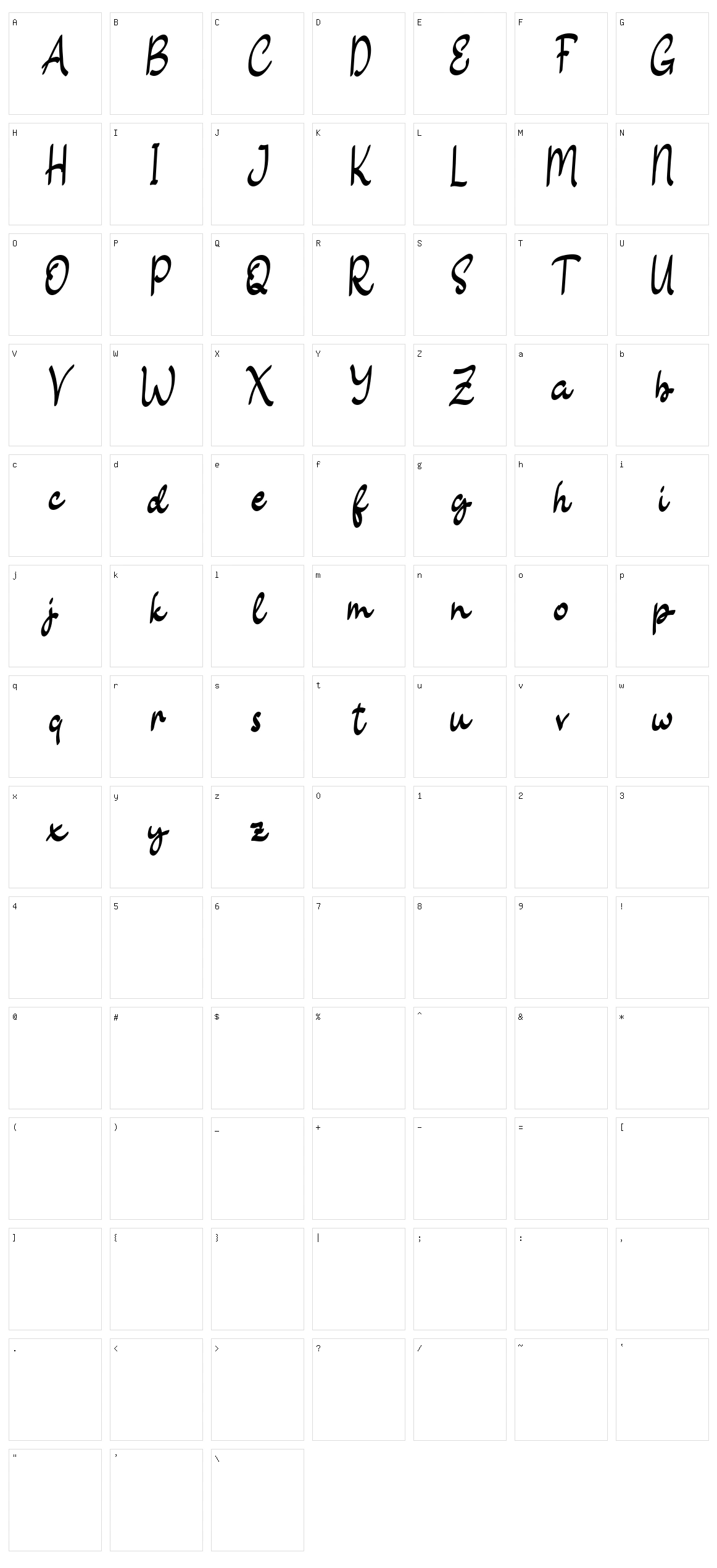
The free font Sweetlilly is carefully designed by Vunira Design, showcasing a thoughtful balance of creativity and usability and falls under the Script font style. When you download the ZIP file, it contains only 32.37 KB of font files, making it lightweight and quick to download. Please review the license details below to understand permitted usage and distribution rights. If license information is not available, we recommend using this font for personal projects only or contacting the author directly for commercial usage permissions.